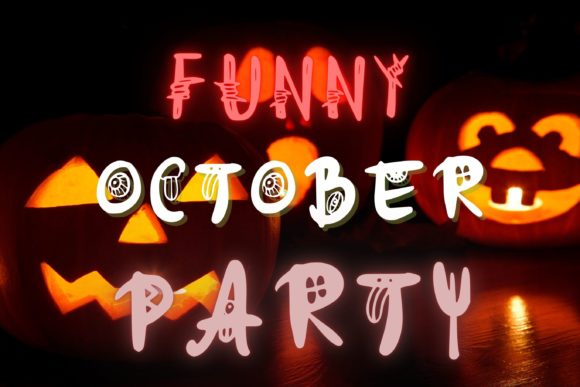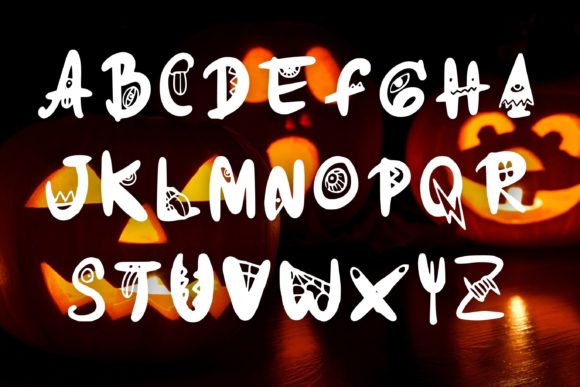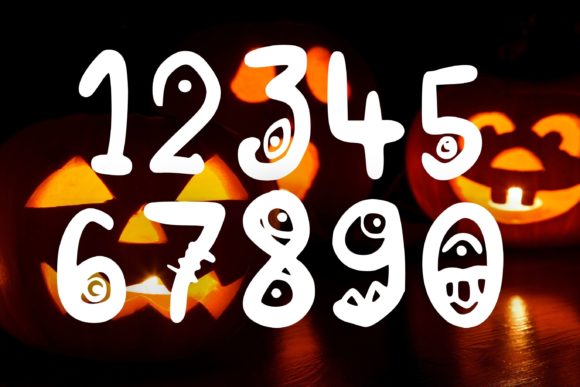
Happy Halloween Font: The Ultimate Decorative Font for Spooky and Fun Designs
Are you looking for a font that can add a spooky and fun touch to your designs? Look no further than the Happy Halloween Font! This cool, useful, and unique decorative font is perfect for various projects, including blog posts, logos, branding, ads, invitations, greeting cards, planners, photo albums, decorations, and much more.
What Makes Happy Halloween Font So Special?
The Happy Halloween Font is a one-of-a-kind decorative font that is sure to make your designs stand out. Its unique and playful style is perfect for adding a touch of Halloween spirit to any project. Whether you’re a designer, crafter, or DIY enthusiast, this font is a must-have in your collection.
Uses of Happy Halloween Font
The Happy Halloween Font is incredibly versatile and can be used for a wide range of projects, including:
- Blog Posts: Add a spooky and fun touch to your blog posts with the Happy Halloween Font. Use it for headings, titles, and even body text to create a cohesive and engaging design.
- Logos and Branding: Create a unique and memorable logo for your business or brand with the Happy Halloween Font. Its playful style is perfect for businesses that want to stand out and make a statement.
- Ads: Make your ads stand out with the Happy Halloween Font. Use it to create eye-catching headlines and attention-grabbing copy that will drive results.
- Invitations: Create spooky and fun invitations for Halloween parties, events, and gatherings with the Happy Halloween Font.
- Greeting Cards: Add a personal touch to your greeting cards with the Happy Halloween Font. Create unique and heartfelt cards that will make your loved ones feel special.
- Planners and Photo Albums: Use the Happy Halloween Font to add a touch of personality to your planners and photo albums. Create a cohesive and engaging design that will make your projects stand out.
- Decorations: Use the Happy Halloween Font to create spooky and fun decorations for your home or office. Create signs, banners, and other decorative items that will add to the Halloween spirit.
Why Choose Happy Halloween Font?
There are many reasons why you should choose the Happy Halloween Font for your designs. Here are a few:
- Unique and Playful Style: The Happy Halloween Font has a unique and playful style that is perfect for adding a touch of Halloween spirit to any project.
- Versatile: The Happy Halloween Font is incredibly versatile and can be used for a wide range of projects.
- High-Quality: The Happy Halloween Font is a high-quality font that is designed to produce crisp and clear text.
Tips for Using Happy Halloween Font
Here are a few tips for using the Happy Halloween Font:
- Use it Sparingly: Use the Happy Halloween Font sparingly to add a touch of personality to your designs. Overusing the font can make your designs look cluttered and overwhelming.
- Pair it with Other Fonts: Pair the Happy Halloween Font with other fonts to create a unique and engaging design. Try pairing it with a sans-serif font for a modern look or a serif font for a more traditional look.
- Experiment with Different Sizes and Colors: Experiment with different sizes and colors to find the perfect combination for your design.
The Happy Halloween Font is a cool, useful, and unique decorative font that is perfect for adding a touch of Halloween spirit to any project. Its versatile style and ease of use make it a must-have for designers, crafters, and DIY enthusiasts. Whether you’re creating blog posts, logos, branding, ads, invitations, greeting cards, planners, photo albums, decorations, or much more, the Happy Halloween Font is the perfect choice.